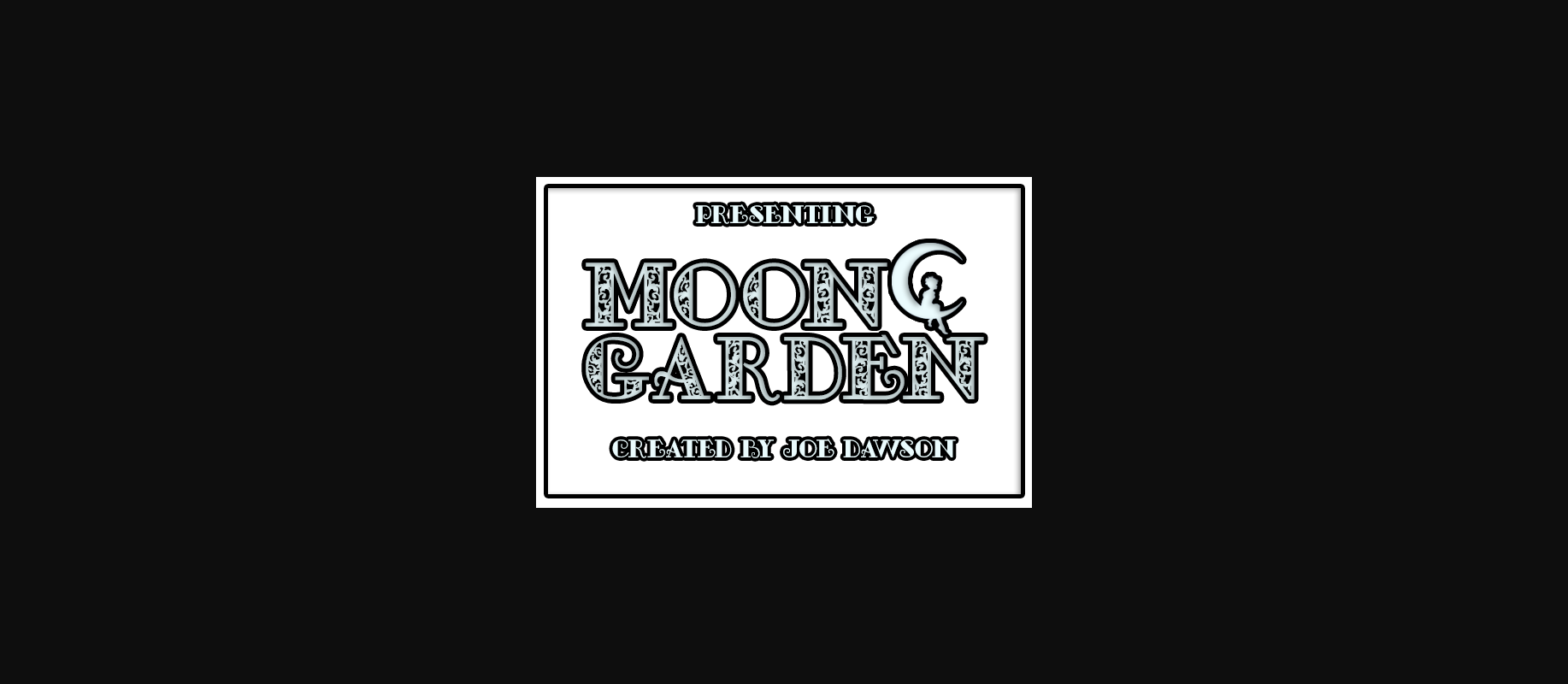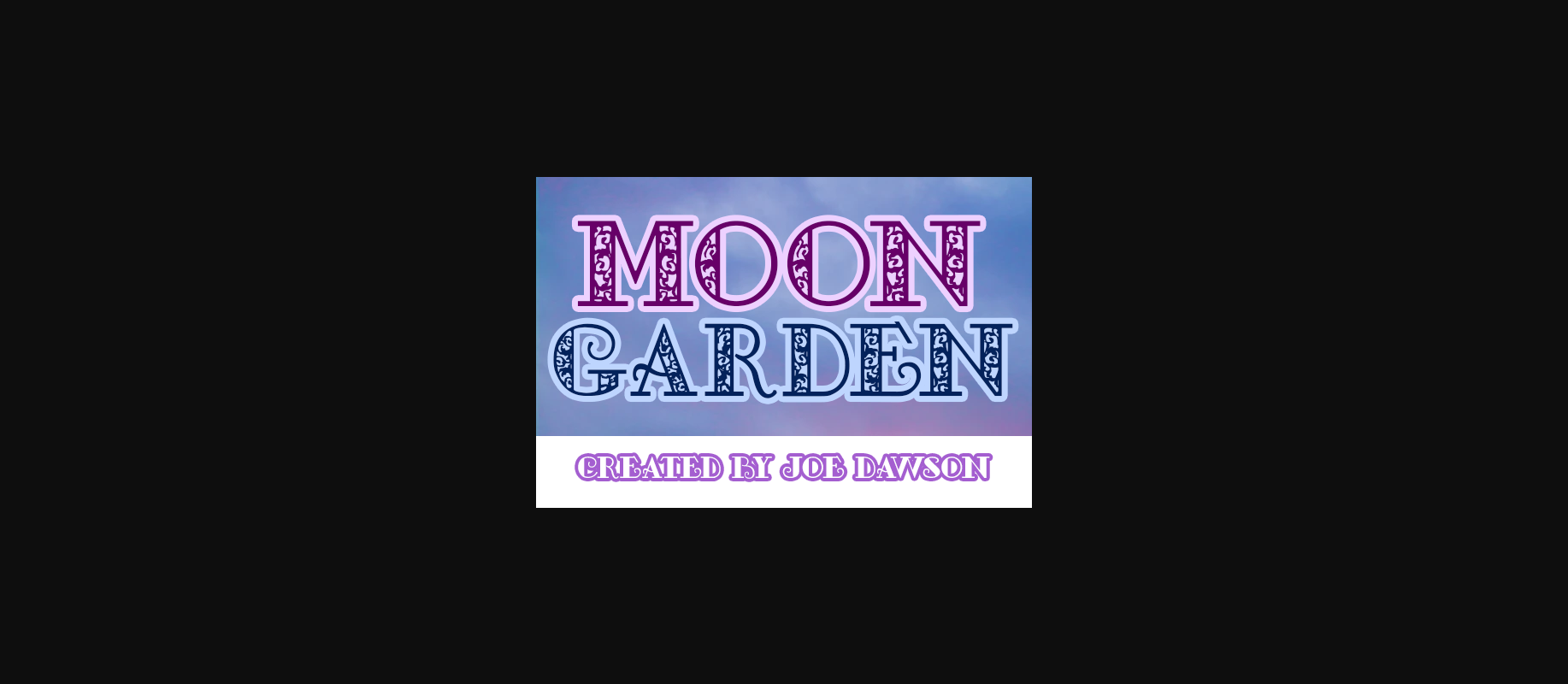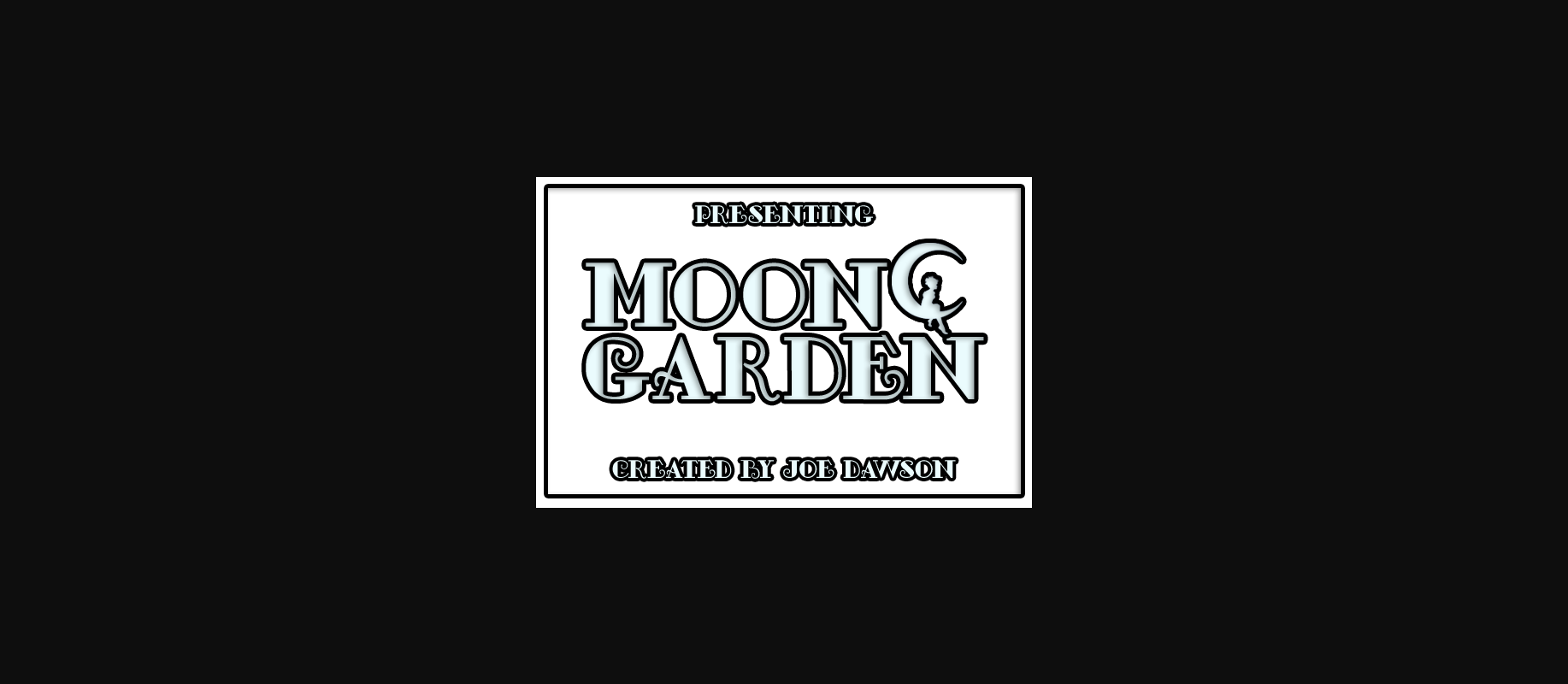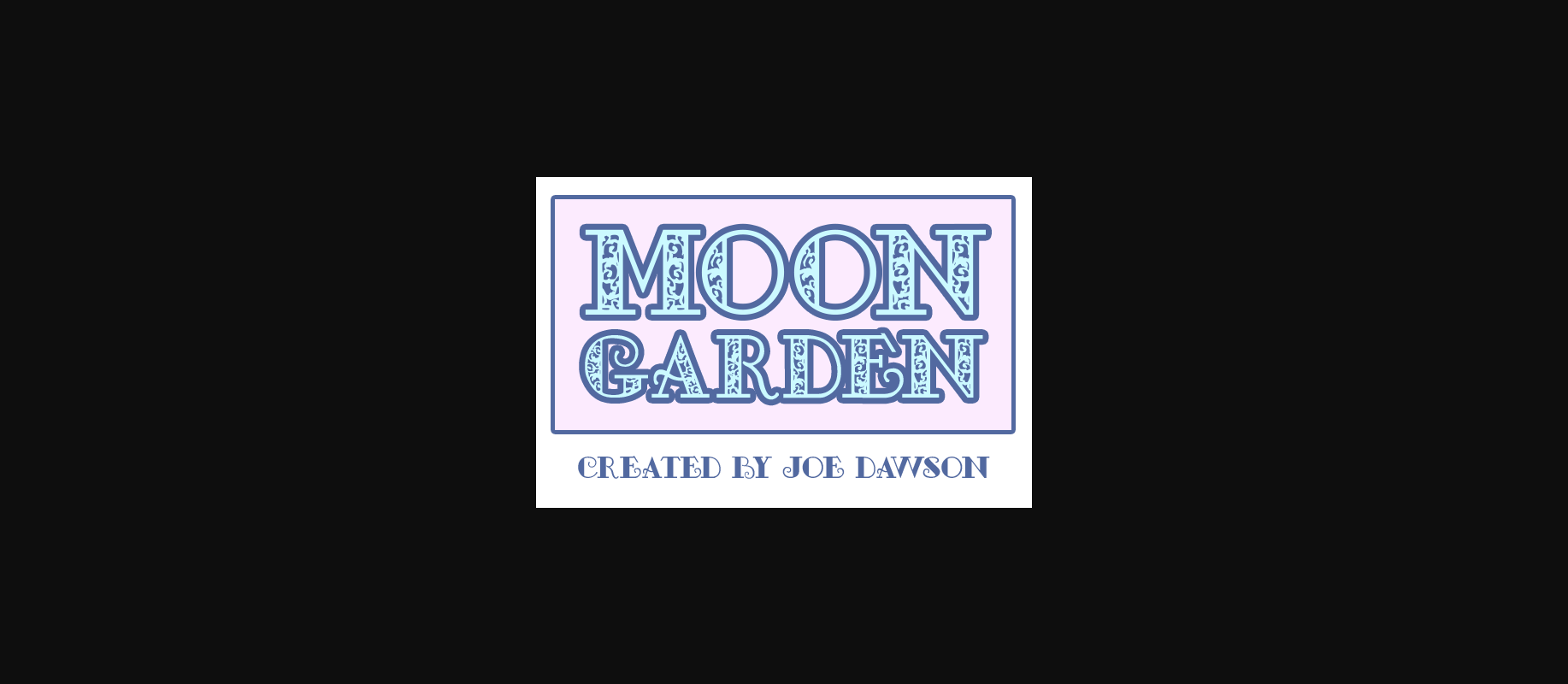
Moon Garden Font
About Moon Garden Font
Moon Garden is a unique decorative font with intricate design and style options. It is perfect for all of your vintage/retro designs and projects!